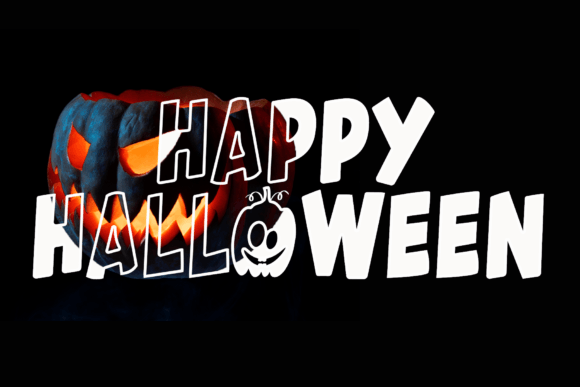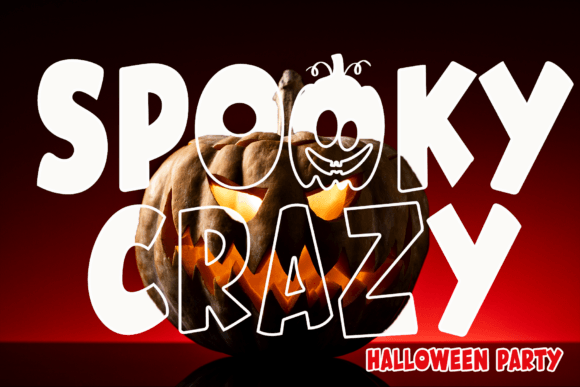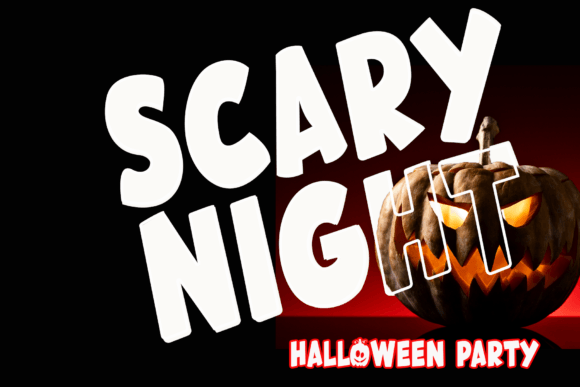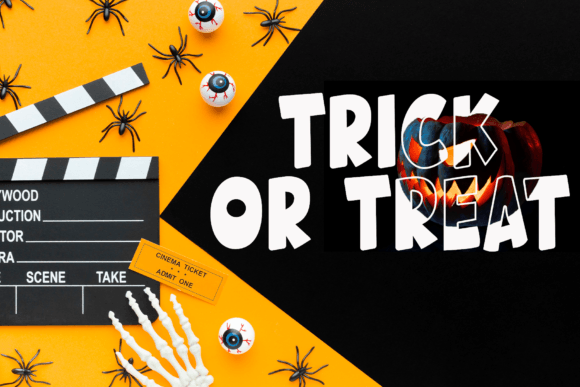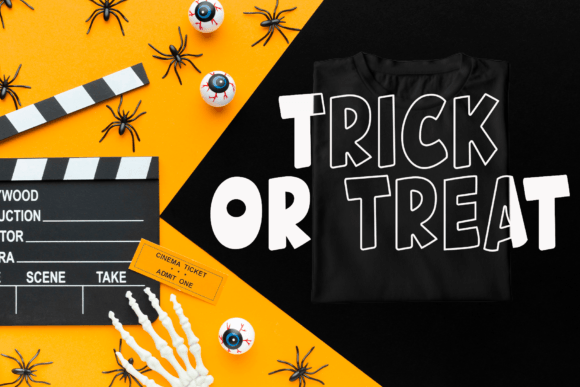
Introducing Ghost Pumpkin Font: The Spookiest Typeface for Halloween
As the spookiest time of the year approaches, designers and crafters are on the lookout for the perfect typography to add a touch of eerie excitement to their Halloween-themed creations. Look no further than the Ghost Pumpkin font, a delightfully spooky typeface that embodies the playful essence of Halloween. With its eerie, yet whimsical lettering, this font is perfect for adding a touch of creepy fun to your designs.
The Perfect Font for Halloween Enthusiasts
Ghost Pumpkin font is designed to capture the imagination and evoke the thrill of the Halloween season. Its unique blend of spooky and playful elements makes it an ideal choice for a wide range of design projects, from party invitations and haunted house flyers to chilling social media posts and eerie event branding. Whether you’re a designer, crafter, or simply a Halloween enthusiast, this font is sure to cast a spell of excitement over your text.
Key Features of Ghost Pumpkin Font
- Eerie yet Whimsical Design: The Ghost Pumpkin font boasts an unmistakable spooky charm, with letters that seem to dance across the page with a playful, ghostly elegance.
- Perfect for Halloween Themes: From party invites to haunted house flyers, this font is tailored to add a chilling touch to your Halloween designs.
- Highly Versatile: Use it for digital designs, print materials, or anything in between – Ghost Pumpkin font adapts seamlessly to various mediums.
Creative Uses for Ghost Pumpkin Font
The versatility of the Ghost Pumpkin font makes it suitable for a myriad of creative projects. Here are a few ideas to get you started:
- Halloween Party Invitations: Stand out from the crowd with invitations that scream (pun intended) to be noticed. Add a personal touch with the Ghost Pumpkin font and make your party invites unforgettable.
- Haunted House Flyers and Posters: Create eye-catching promotional materials for haunted attractions. The spooky essence of the font will surely entice thrill-seekers.
- Social Media Posts: Elevate your Halloween-themed social media content with a dash of spookiness. Whether it’s a Facebook event, an Instagram story, or a tweet, Ghost Pumpkin font will make your posts pop.
- Eerie Event Branding: From Halloween festivals to spooky movie nights, use the Ghost Pumpkin font to create cohesive and captivating event branding.
Tips for Using Ghost Pumpkin Font
To make the most of the Ghost Pumpkin font, consider the following tips:
- Experiment with Colors: While the font itself is the star, complementing it with the right colors can enhance its spooky appeal. Consider dark, rich tones like black, purple, and orange.
- Play with Sizes: Mixing font sizes can add a dynamic, playful touch to your designs. Use larger text for headings and smaller text for body content.
- Add Graphics and Icons: Combining the Ghost Pumpkin font with Halloween-themed graphics and icons can further amplify the spooky atmosphere of your designs.